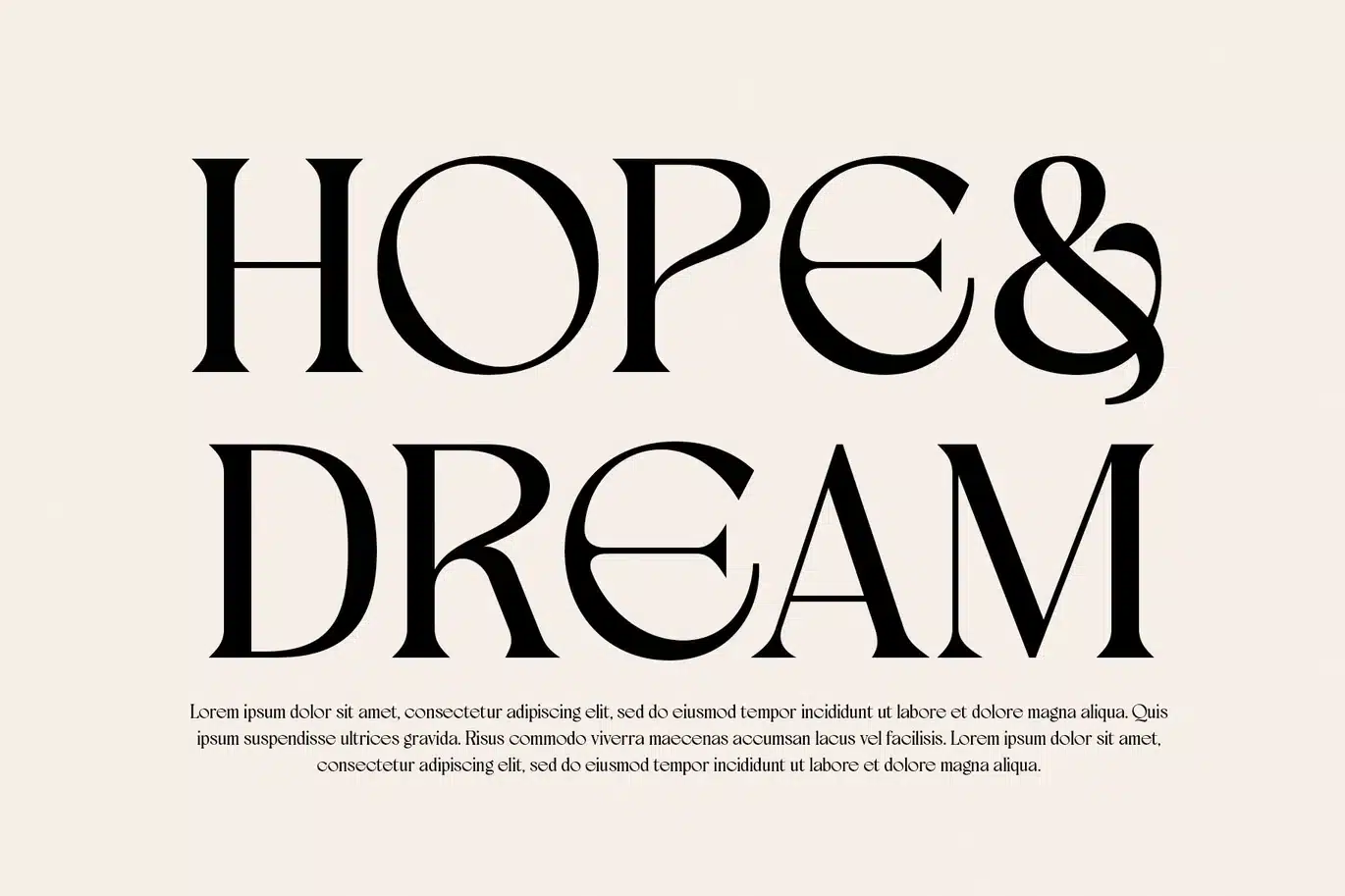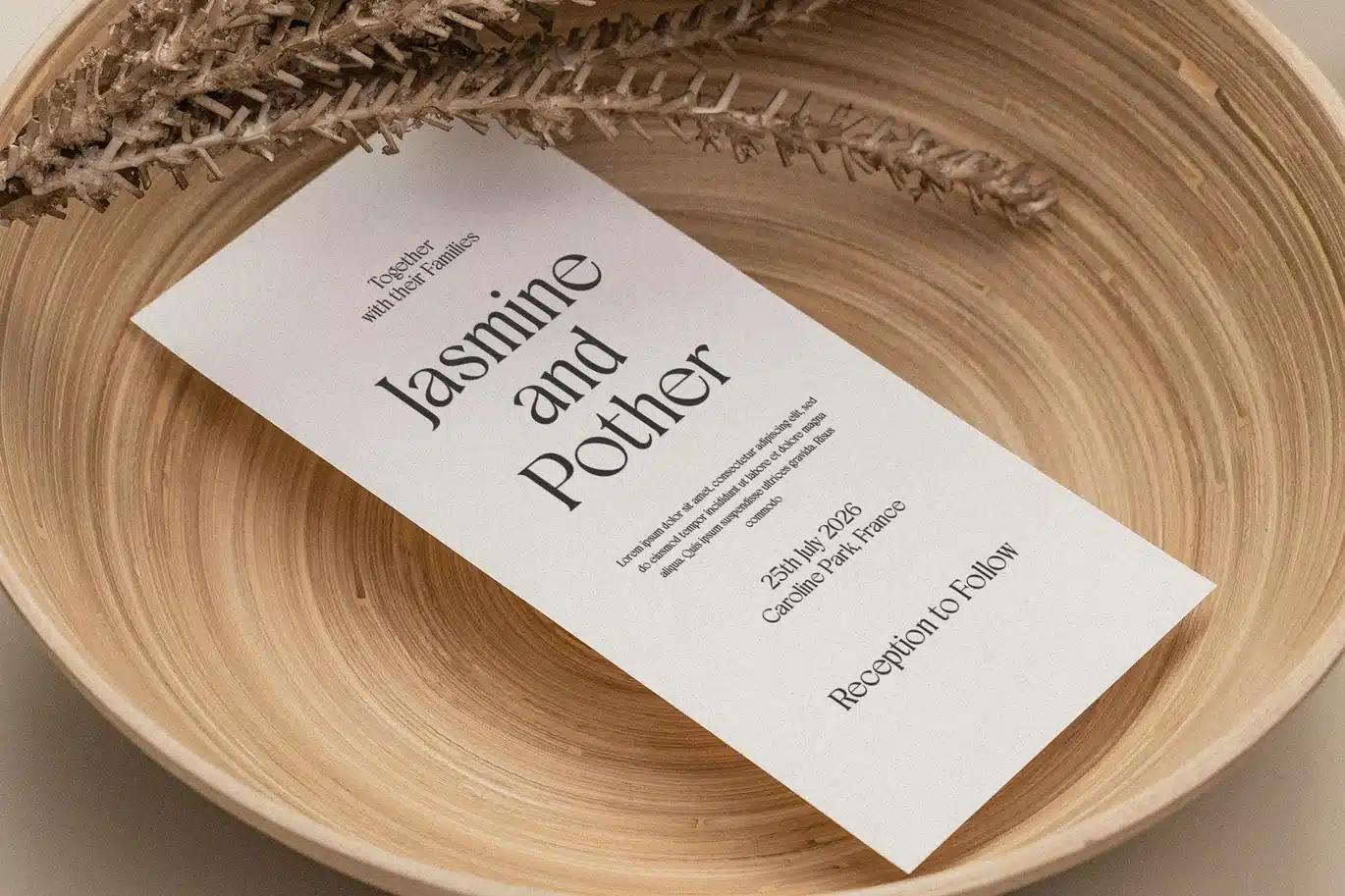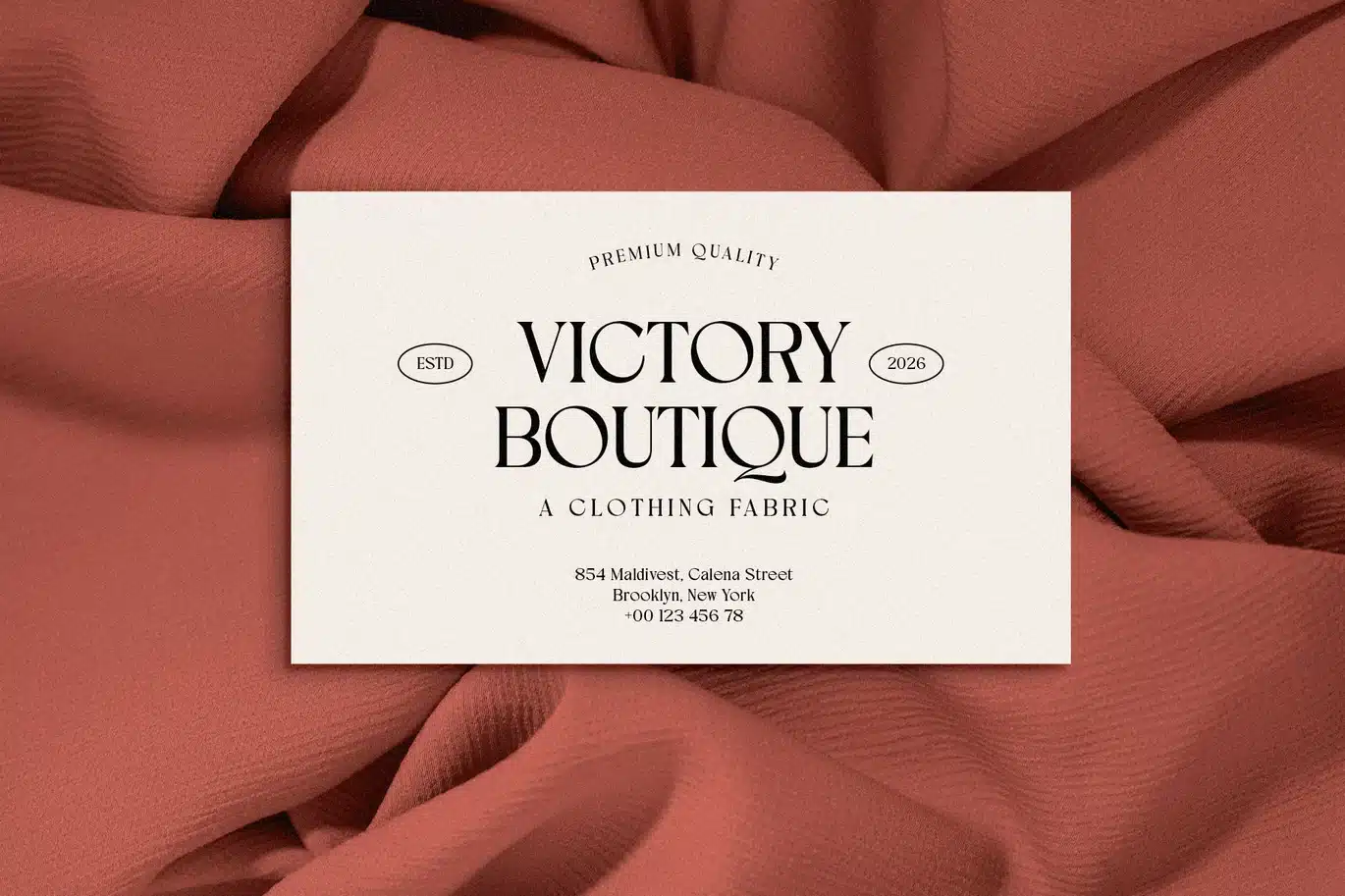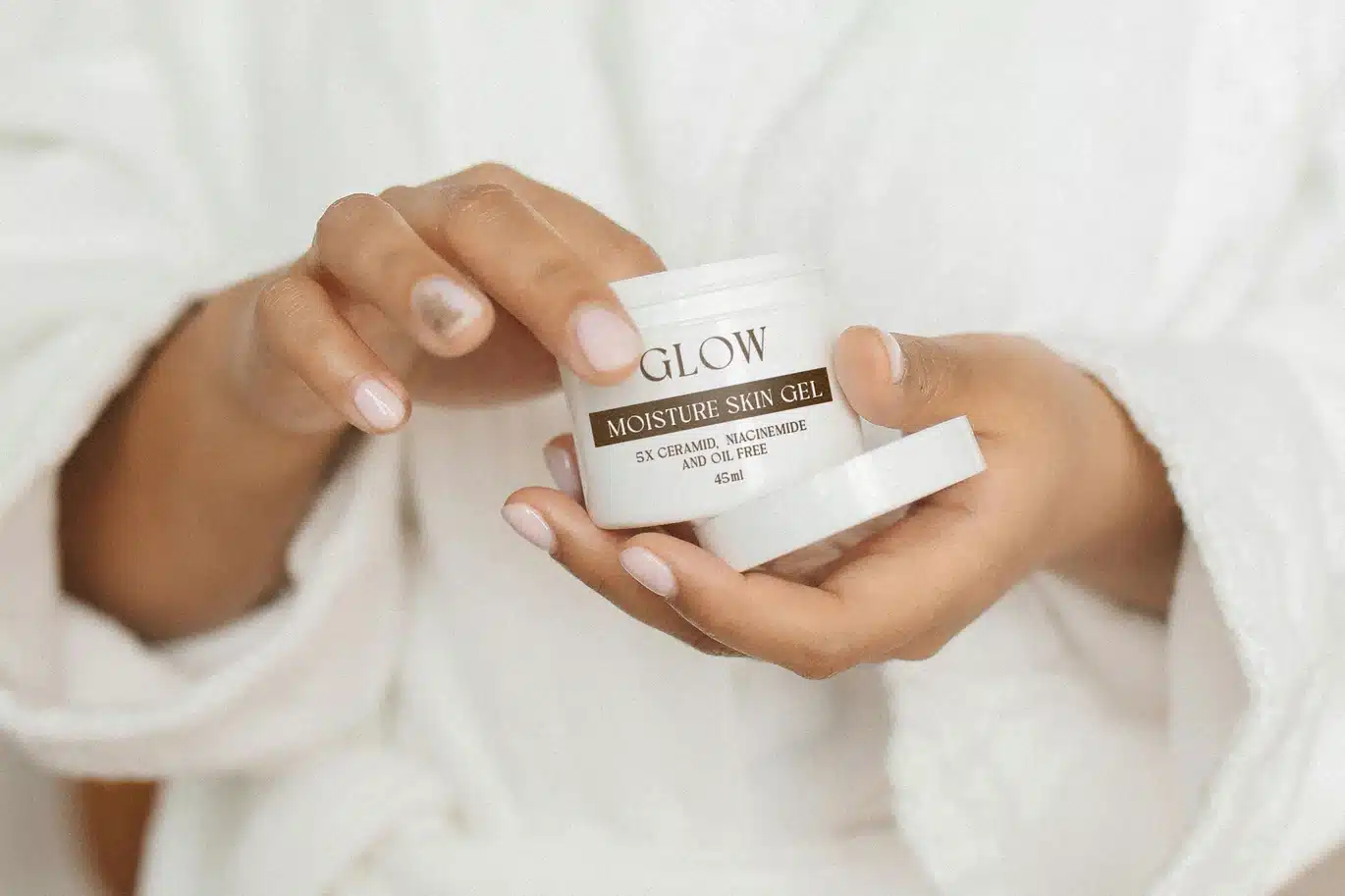
Clanessa Modern Branding Serif Font
Clanessa is modern branding serif font made by rantautype studio. Clanessa embrace elegant and versatile look to make you project awesome. Clanessa is a perfectly choice for any creative endeavor, creating, modern, lifestyle design such as logotype, title, cover, branding, invitations, wedding designs, display and magazine, social media posts, advertisements, printed quotes, product packaging, corporate brand, product designs, labels, photography, watermarks, special events and any other project with modern touch.